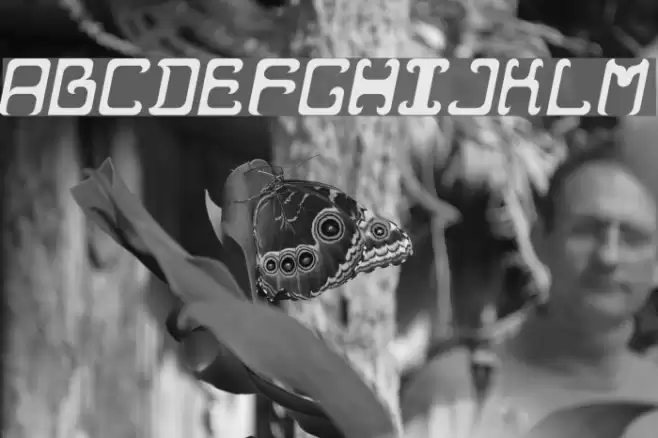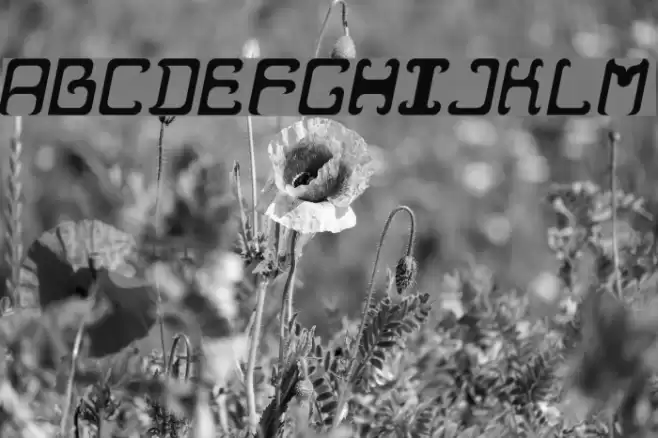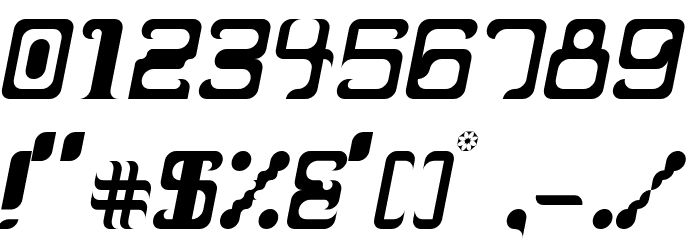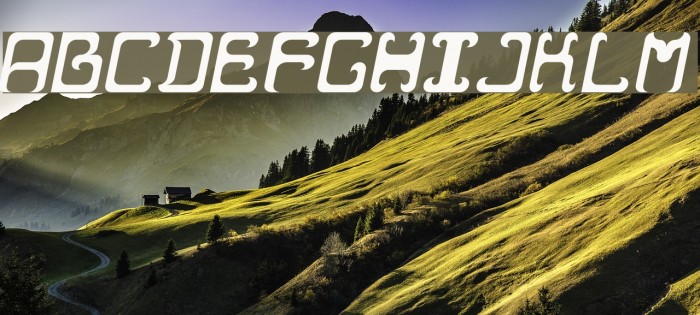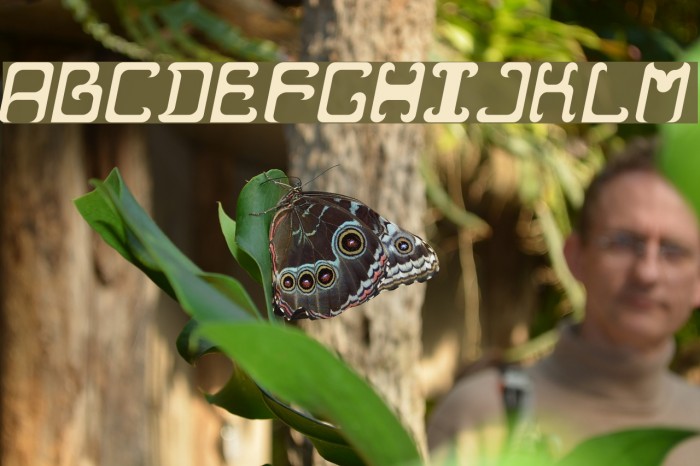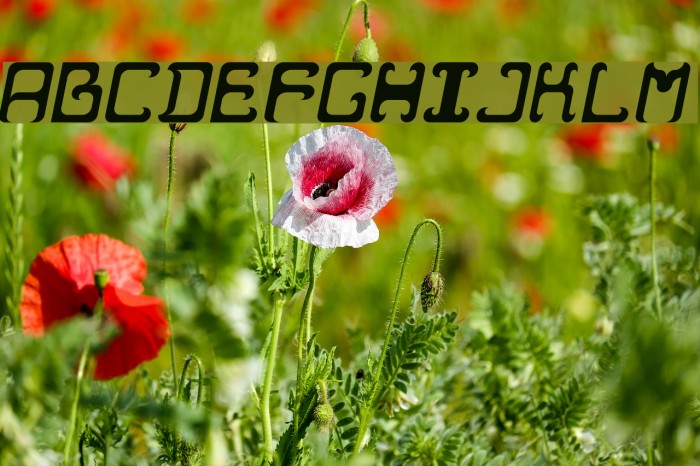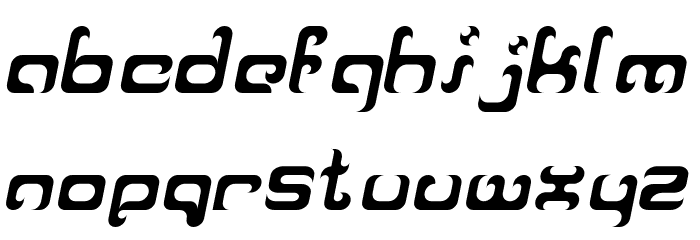
Reaver Italic Font
Reaver Italic Description
This font features a bold and dynamic style with a futuristic flair. The characters are italicized, giving them a forward-leaning appearance that suggests movement and speed. The strokes are thick and consistent, creating a strong visual impact. The design includes rounded edges and unique cutouts within the letters, adding a distinctive and modern touch. The numerals and special characters maintain the same boldness and stylistic elements, ensuring a cohesive look across all glyphs. This font is well-suited for projects that require a sense of energy and modernity.
A bold, italicized font with a futuristic and dynamic style from Crazy fonts.